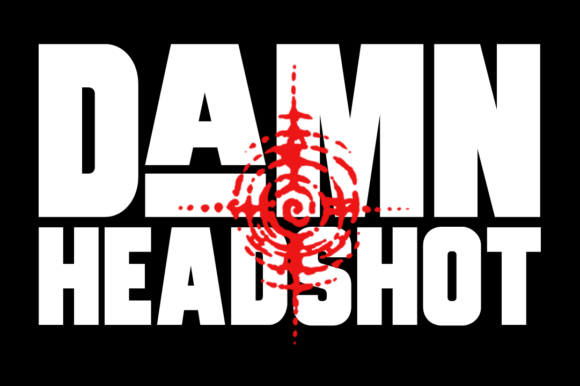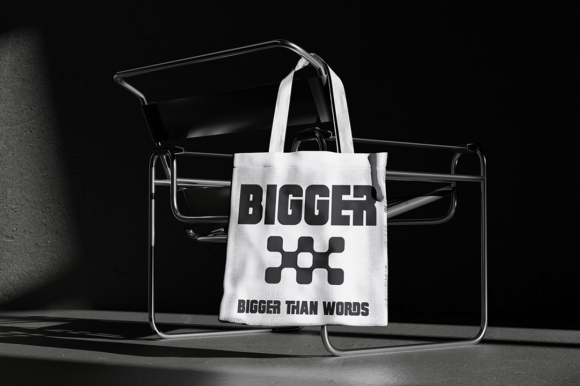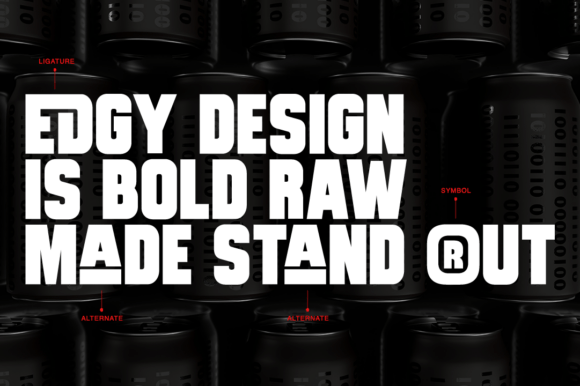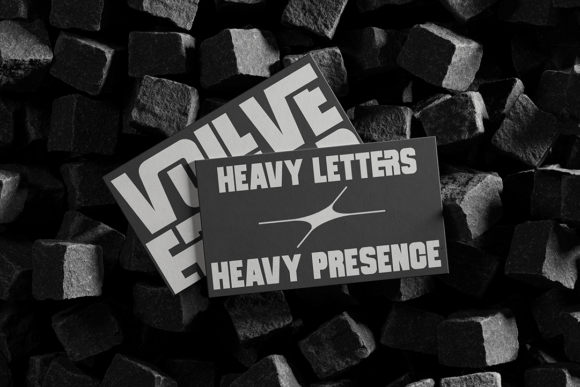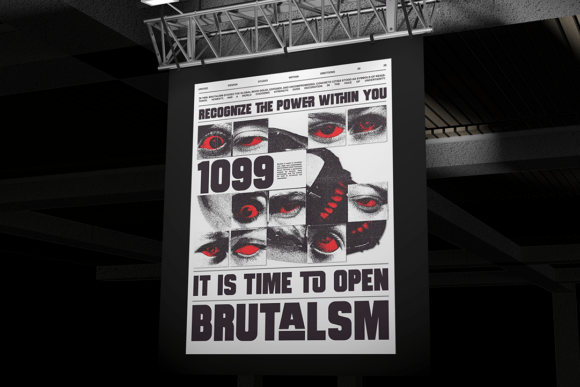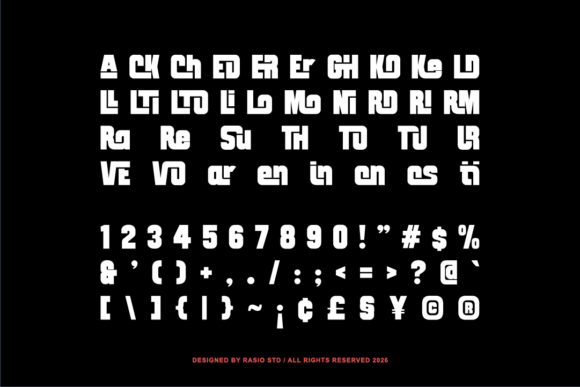
Introducing Grillo Font: The Heavyweight Champion of Bold Headlines and Powerful Branding
In the world of typography, a font can make or break a design. When it comes to creating bold headlines, eye-catching titles, and powerful branding, designers need a font that can deliver clarity, dominance, and impact. That’s where Grillo Font comes in – a heavyweight, high-impact sans serif font designed to take your designs to the next level.
Geometric Construction for Clarity and Presence
Grillo Font boasts a geometric construction that provides a solid foundation for its bold and dramatic presence. Its tight spacing ensures that the font remains clear and legible, even at smaller sizes, making it perfect for use across digital and print platforms. Whether you’re designing a logo, poster, or packaging, Grillo Font’s geometric construction ensures that your message is conveyed with precision and impact.
A Comprehensive Character Set for Endless Possibilities
Grillo Font is more than just a bold sans serif font – it’s a comprehensive character set that includes uppercase and lowercase letters, numerals, punctuation, and multilingual support. This means that designers can use Grillo Font for a wide range of projects, from editorial design to branding and advertising. With Grillo Font, you can create stunning headlines, titles, and text that will leave a lasting impression on your audience.
Bonus Ligatures and Stylistic Alternates for Added Versatility
What sets Grillo Font apart from other bold sans serif fonts is its bonus ligatures and stylistic alternates. These extra features add an extra layer of versatility to the font, making it perfect for logos, posters, packaging, or editorial design. With Grillo Font, you can create unique and eye-catching designs that showcase your creativity and style.
Grillo Font is a designer’s dream come true. Its bold and dramatic presence makes it perfect for creating stunning headlines, titles, and text that will grab attention and leave a lasting impression. Crafters will also love Grillo Font, as its geometric construction and tight spacing make it ideal for use in a variety of craft projects, from paper crafting to vinyl cutting.
Key Features of Grillo Font
- Heavyweight, high-impact sans serif font designed for bold headlines, eye-catching titles, and powerful branding
- Geometric construction for clarity and presence
- Tight spacing for optimal legibility
- Comprehensive character set including uppercase and lowercase letters, numerals, punctuation, and multilingual support
- Bonus ligatures and stylistic alternates for added versatility
- Perfect for digital and print platforms
In conclusion, Grillo Font is a powerful and versatile font that is perfect for designers and crafters looking to create bold headlines, eye-catching titles, and powerful branding. Its geometric construction, tight spacing, and comprehensive character set make it an ideal choice for a wide range of projects. With its bonus ligatures and stylistic alternates, Grillo Font offers endless possibilities for creative expression. So why settle for a ordinary font when you can have a heavyweight champion like Grillo Font?